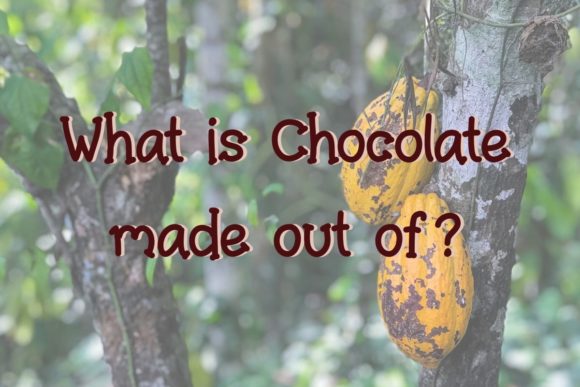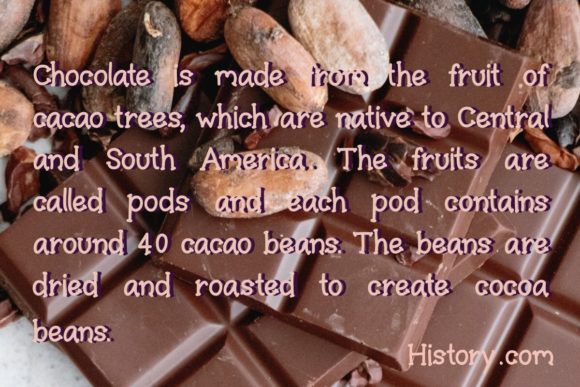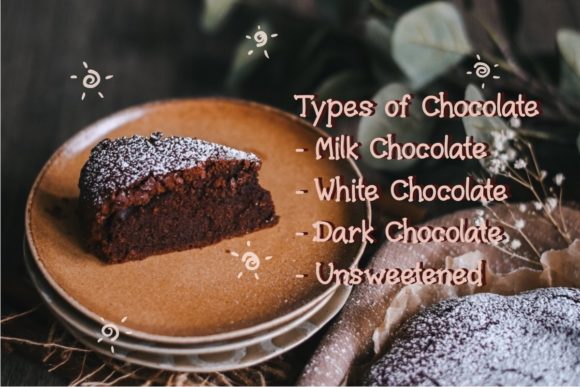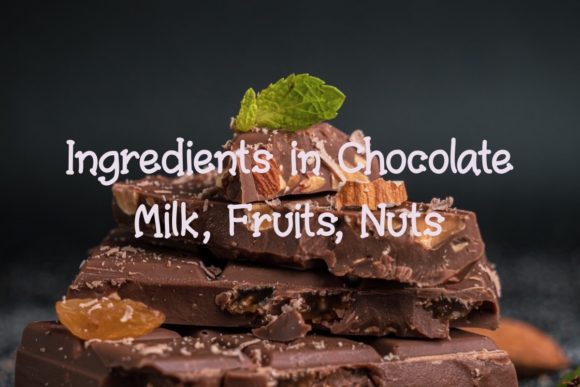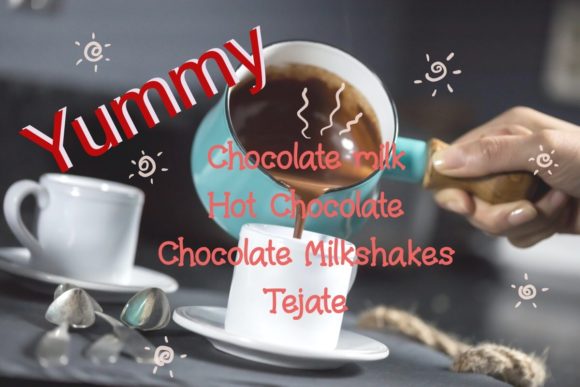
Introducing Chocolate Font: The Sweetest Addition to Your Design Collection
Are you a designer or crafter looking for a font that can add a touch of warmth and personality to your creative projects? Look no further than Chocolate Font, a cute and simple handwritten font that’s perfect for a wide range of applications. In this article, we’ll take a closer look at Chocolate Font, its features, and how you can use it to bring your designs to life.
What is Chocolate Font?
Chocolate Font is a beautiful, handwritten font that’s designed to be both elegant and approachable. Its sweet and charming appearance makes it perfect for a variety of creative projects, from logos and branding to wedding invitations, business cards, and more. With its clean lines and simple design, Chocolate Font is a versatile font that can be used in both digital and print applications.
Features of Chocolate Font
So, what makes Chocolate Font so special? Here are just a few of its key features:
- Cute and Simple Design: Chocolate Font has a charming, handwritten design that’s both easy to read and visually appealing.
- Versatile: This font can be used in a wide range of applications, from logos and branding to wedding invitations, business cards, greeting cards, posters, magazines, social media, planner prints, and websites.
- Elegant and Approachable: Chocolate Font strikes the perfect balance between elegance and approachability, making it perfect for designs that need to be both sophisticated and friendly.
Use Cases for Chocolate Font
So, how can you use Chocolate Font in your designs? Here are just a few ideas to get you started:
- Logos and Branding: Use Chocolate Font to create a custom logo or brand identity that’s both memorable and engaging.
- Wedding Invitations: Add a touch of elegance and romance to your wedding invitations with Chocolate Font.
- Business Cards: Use Chocolate Font to create business cards that are both professional and visually appealing.
- Greeting Cards: Create custom greeting cards for birthdays, holidays, and other special occasions with Chocolate Font.
- Posters and Magazines: Use Chocolate Font to add a touch of personality to your posters, magazines, and other print materials.
- Social Media: Use Chocolate Font to create engaging social media graphics that stand out from the crowd.
- Planner Prints: Add a touch of sweetness to your planner prints with Chocolate Font.
- Websites: Use Chocolate Font to create a custom website that’s both visually appealing and easy to read.
Why Choose Chocolate Font?
So, why should you choose Chocolate Font for your next design project? Here are just a few reasons:
- Unique and Memorable: Chocolate Font is a unique and memorable font that can help your designs stand out from the crowd.
- Easy to Read: Chocolate Font is easy to read, even at small sizes, making it perfect for a wide range of applications.
- Customizable: Chocolate Font can be customized to fit your design needs, making it perfect for a wide range of creative projects.
In conclusion, Chocolate Font is a cute and simple handwritten font that’s perfect for designers and crafters looking to add a touch of warmth and personality to their creative projects. With its versatile design, elegant appearance, and wide range of use cases, Chocolate Font is a great addition to any design collection. So why not give it a try and see how it can bring your designs to life?